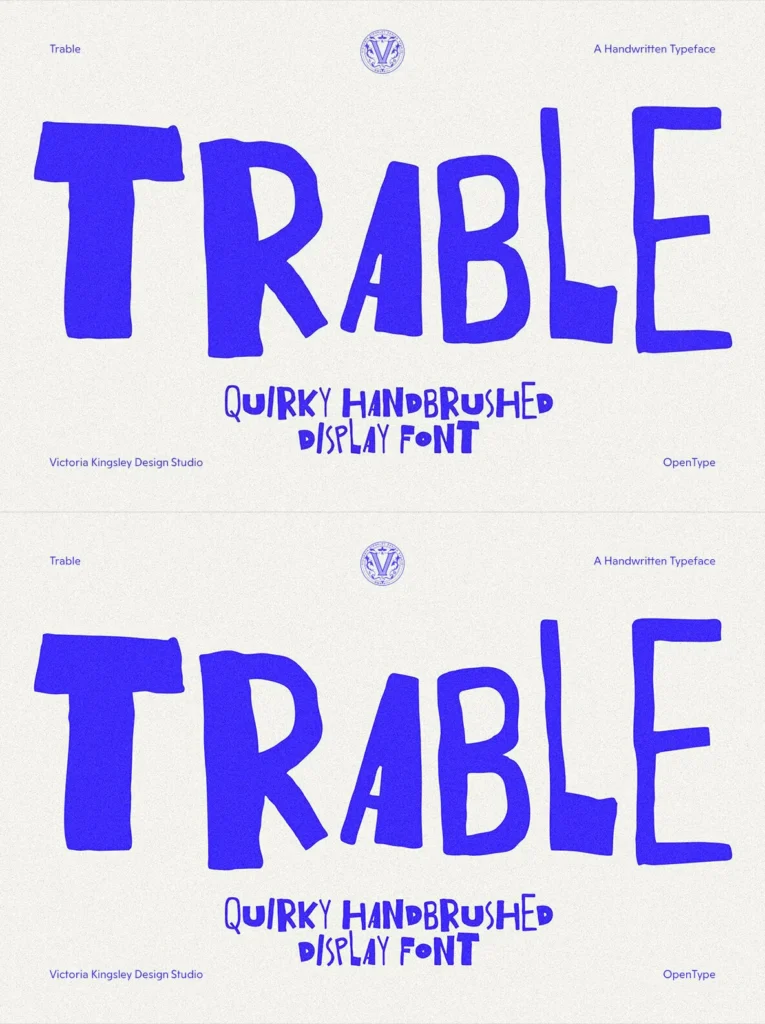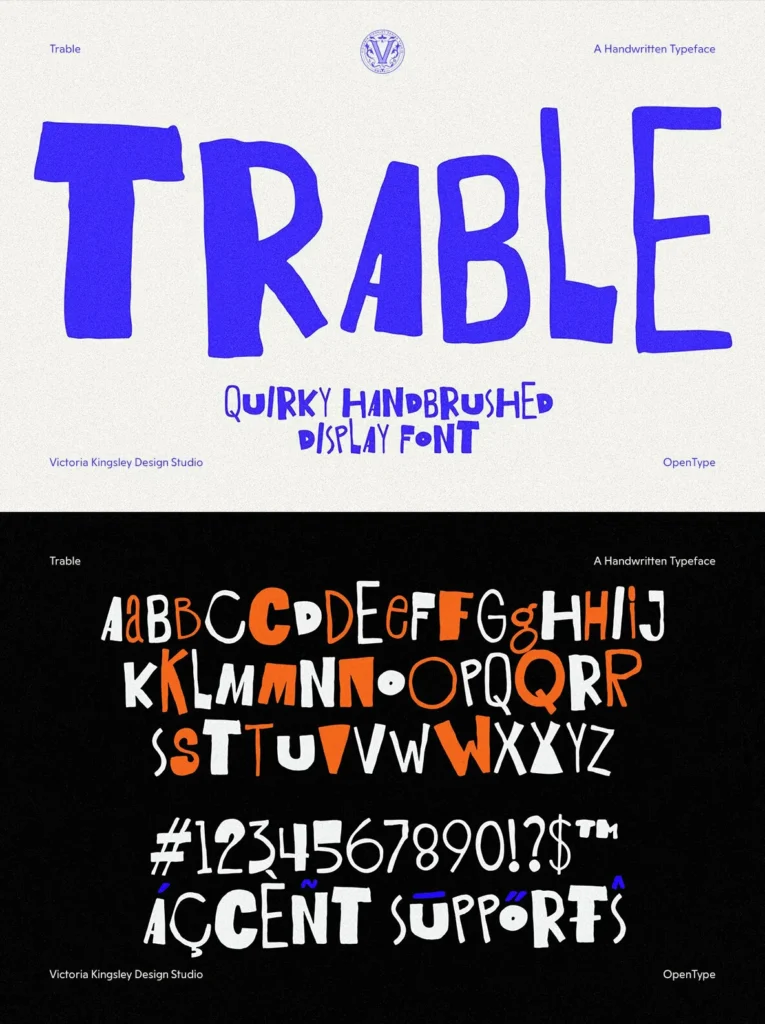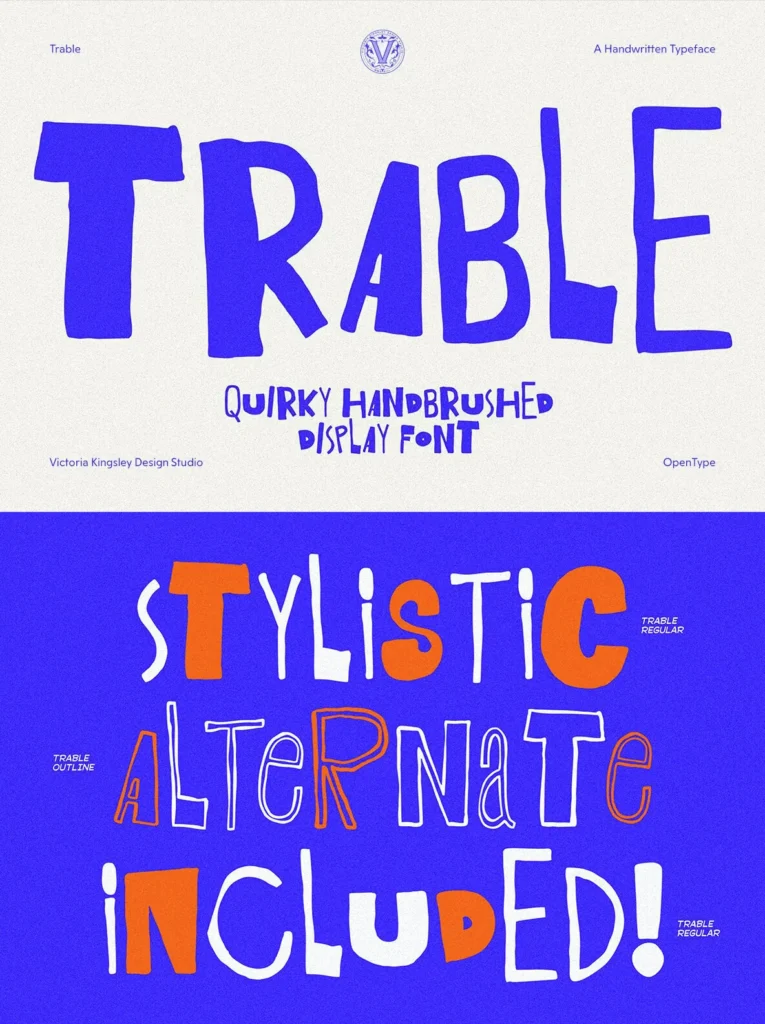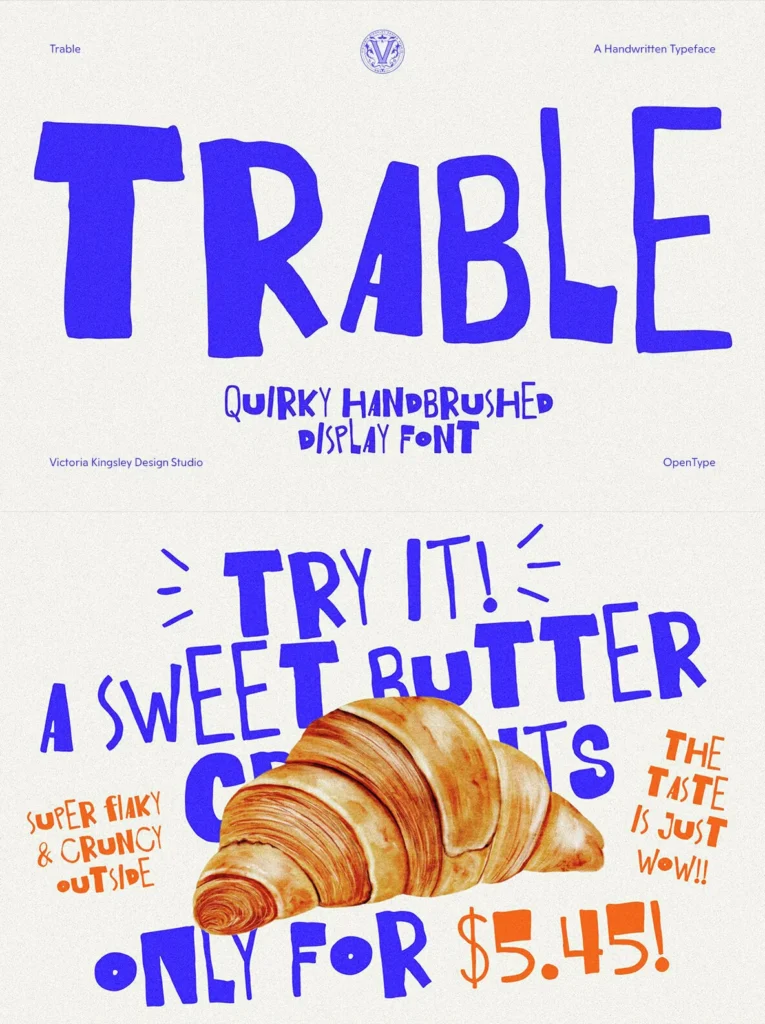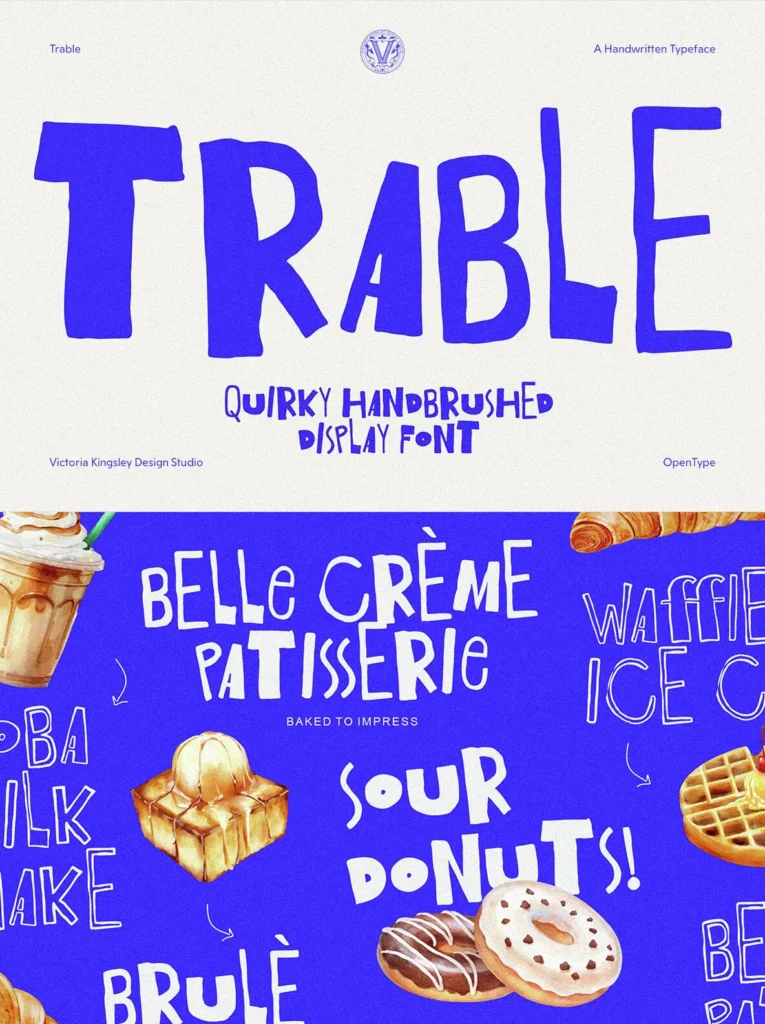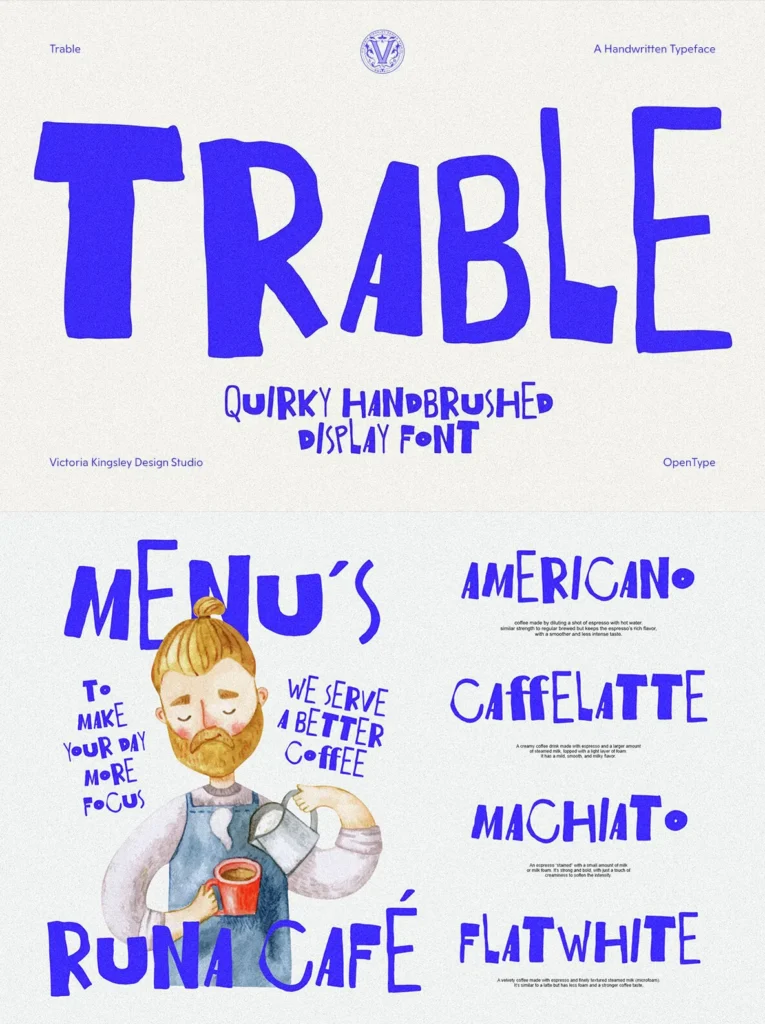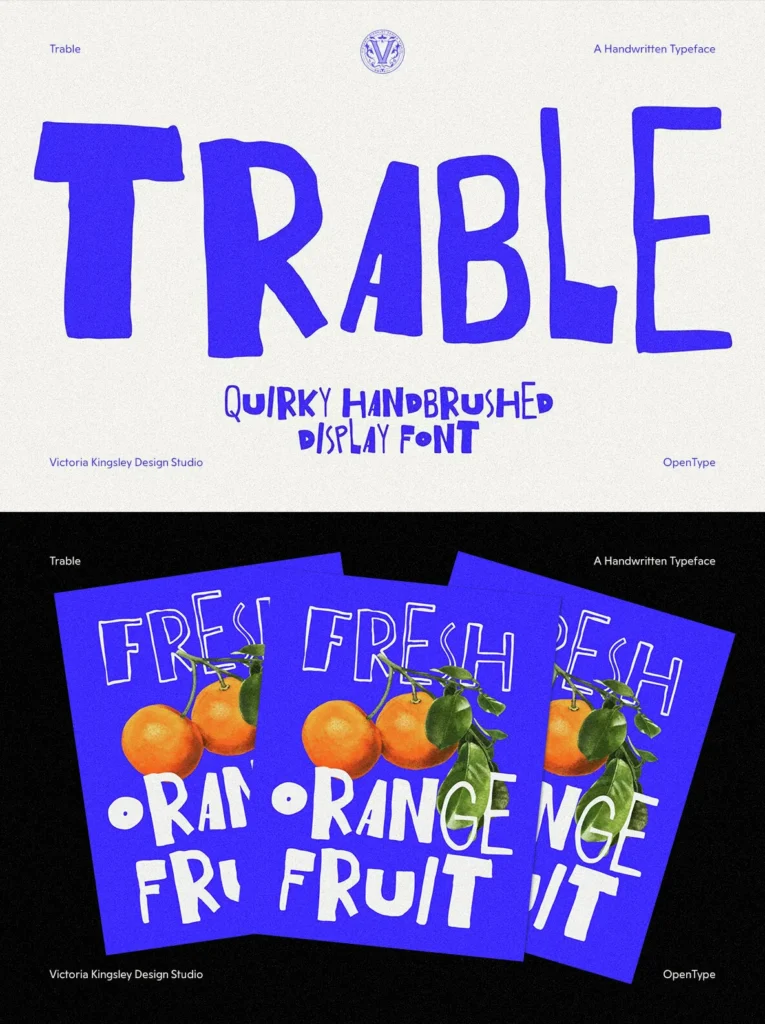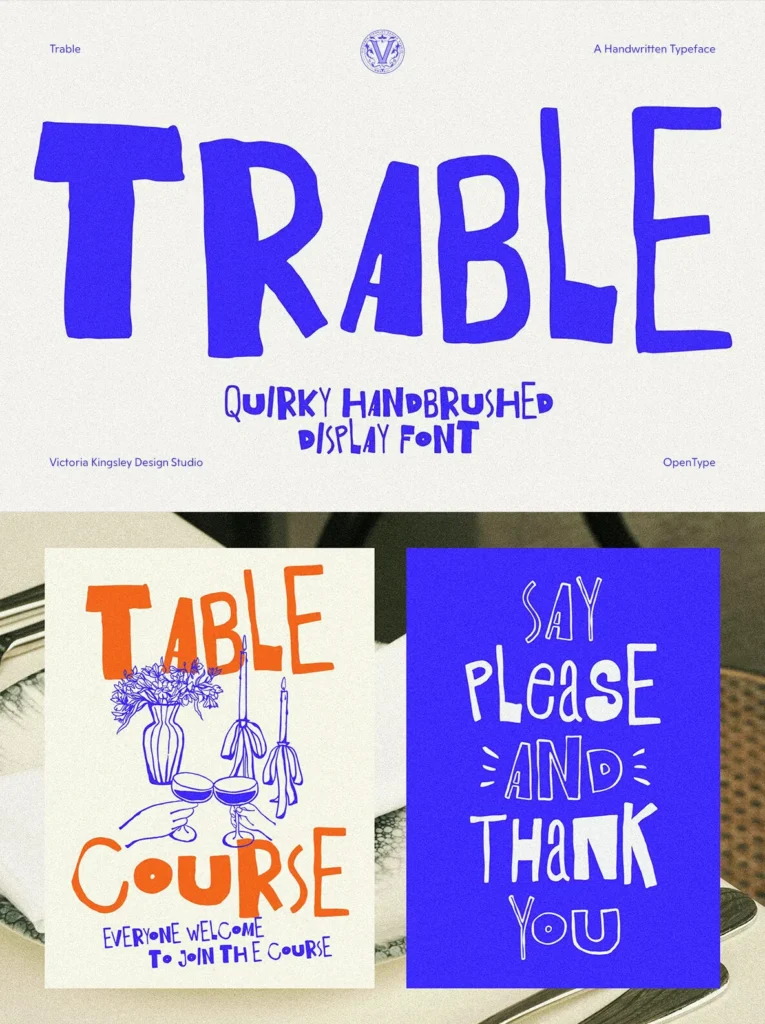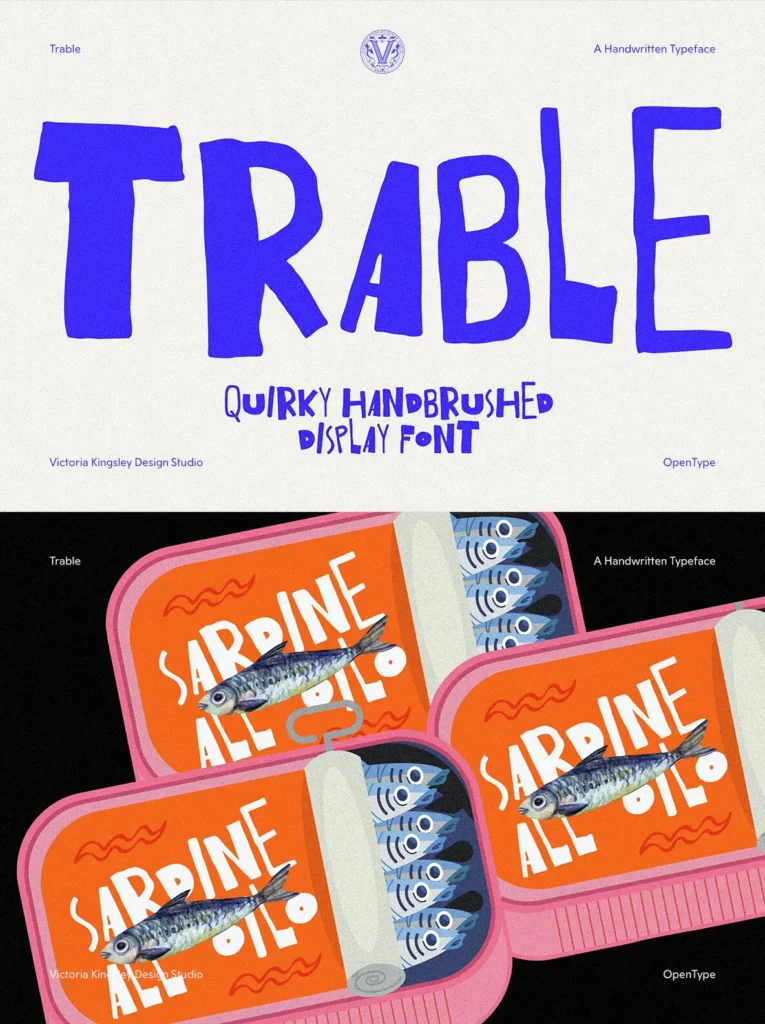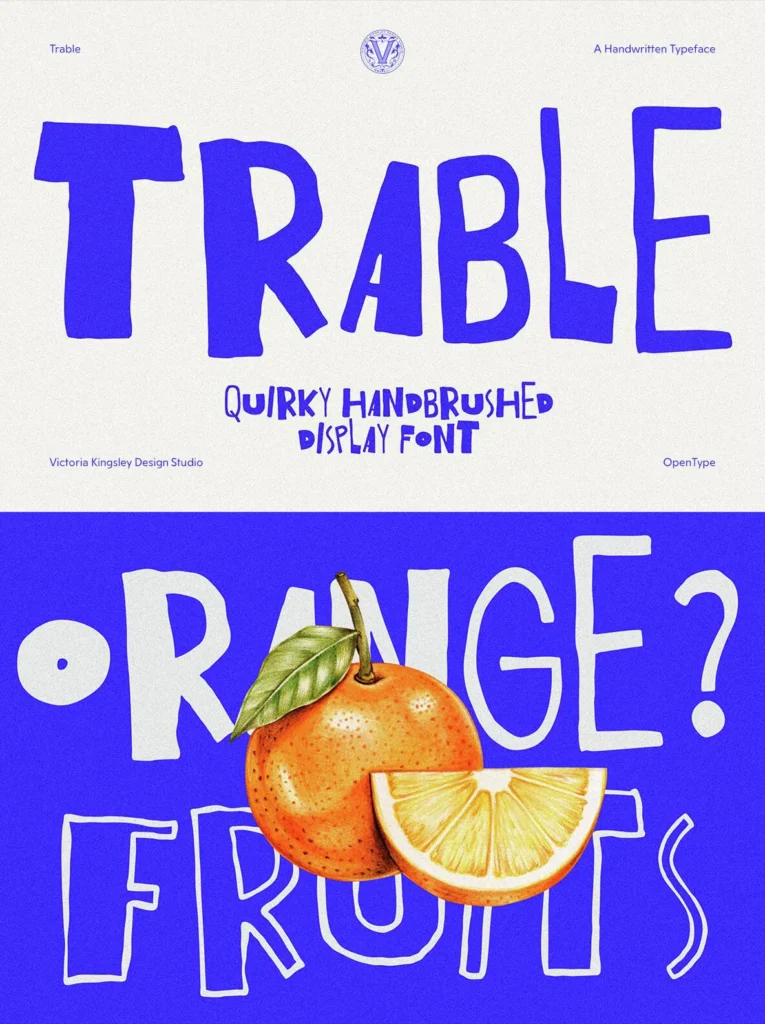
Trable Font
Trable — Chunky Lettering with Character
This chunky hand brushed display typeface uses a bouncy baseline, irregular stroke edges, and a warmth that reads as genuinely hand-drawn rather than mechanically distressed. Its loose, expressive construction gives the typeface a human presence at any size, with enough clarity for confident headline work and large-format typography.
Built for modern use and priced for it, Trable draws on a European café and diner signage tradition: chunky, informal lettering seen on market stalls, food packaging, and hand-painted menus. It brings that aesthetic into a well-built OpenType font with 427 glyphs and coverage across multiple languages. The bouncy, irregular construction holds up well at both display and mid-range sizes, making it practical for apps, web, and social formats.
Regular: a solid filled weight built for headlines and large-format use.
Outline: a companion style that layers naturally over the Regular for layered typographic compositions.
OpenType Features
Alternates
Three Stylistic Sets
Ligatures
Fractions
Food and beverage packaging
Café and restaurant branding
Market and deli signage
Children’s product labels
Editorial illustration headers
Social media content where personality and legibility need to coexist
Poster layouts
Sticker design
Any context where a two-tone or layered typographic approach works
The Outline style adds useful range for layered typographic compositions, from packaging systems to display graphics. Trable keeps its informal, hand-painted character while remaining clear and practical across digital and print use.